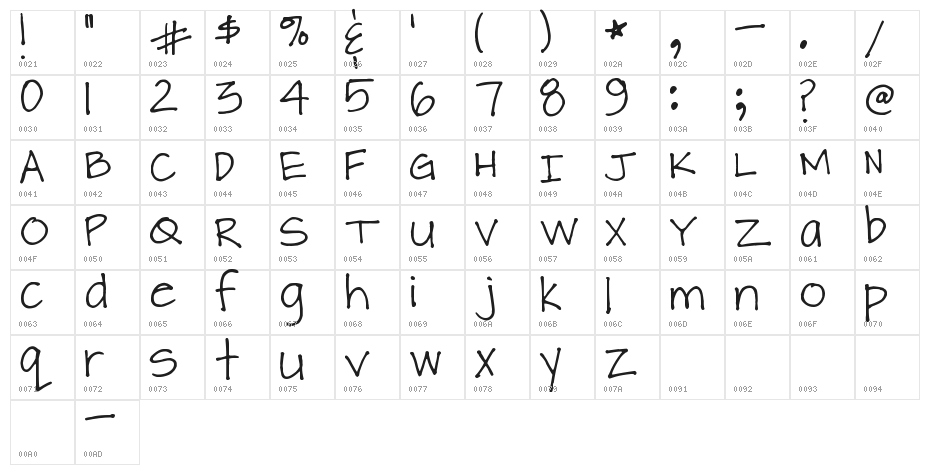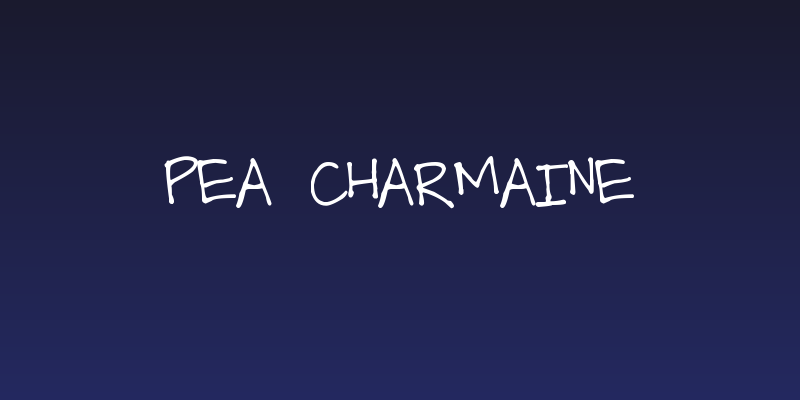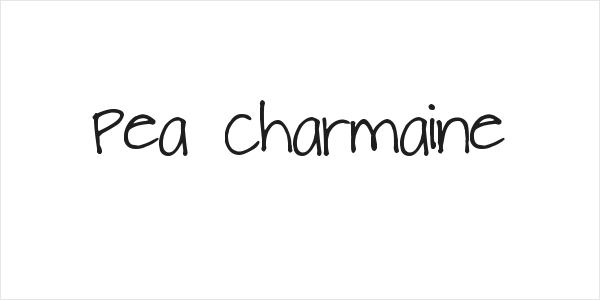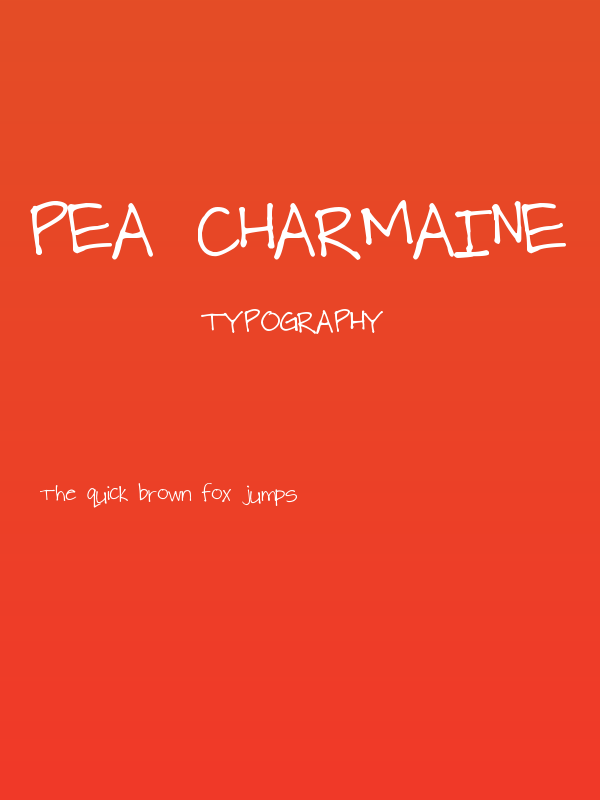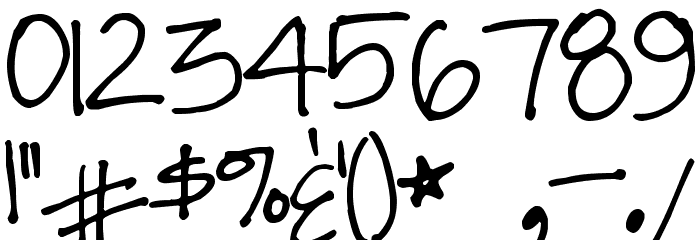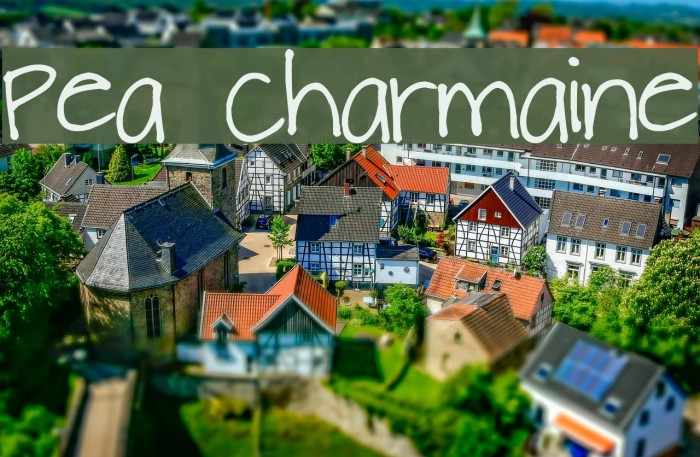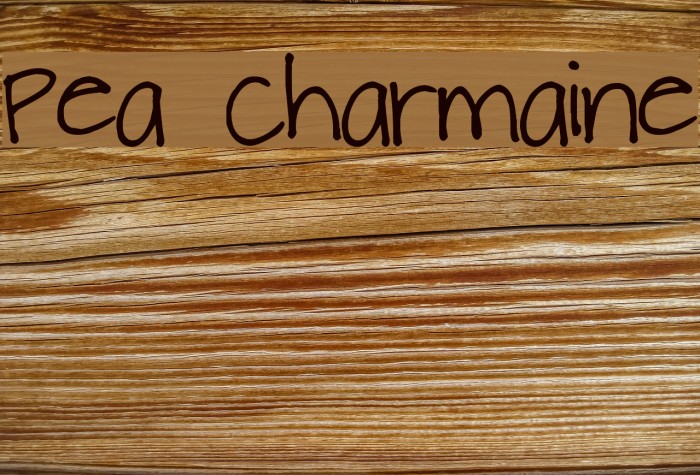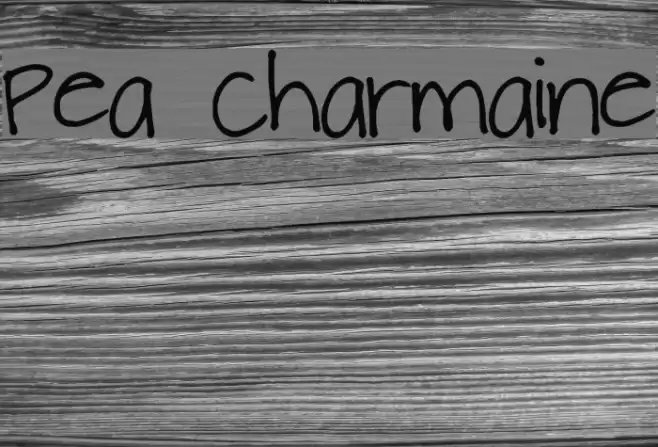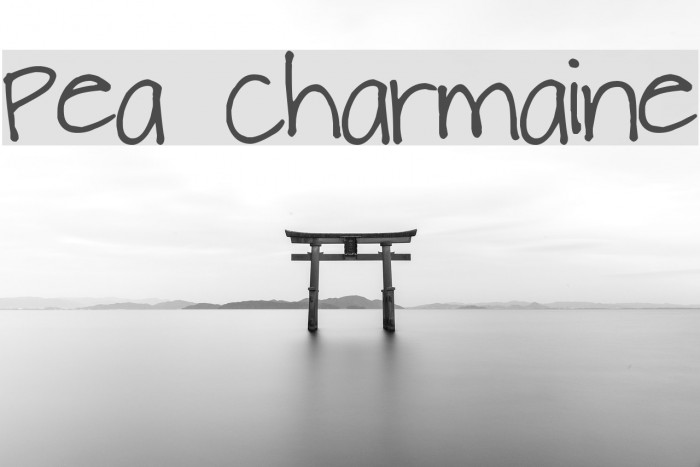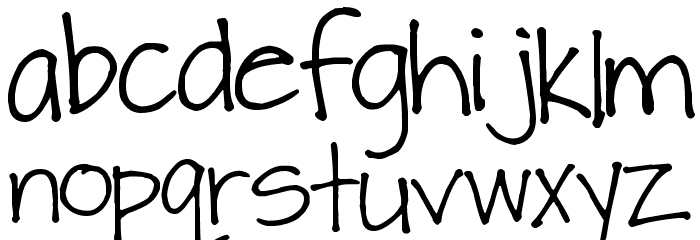
Pea Charmaine Font
Pea Charmaine Description
This font exudes a playful and casual handwritten style, characterized by its irregular strokes and informal appearance. The letters are slightly slanted, giving a dynamic and lively feel. The uppercase and lowercase letters are well-proportioned, maintaining a consistent flow throughout. The numbers and special characters are crafted with the same whimsical touch, ensuring a cohesive look across all elements. This font's charm lies in its ability to convey a sense of friendliness and approachability, making it ideal for projects that require a personal touch.
| Overall Style | Casual |
| Use Case | Headlines, Informal text, Personal projects |
| Proposed Projects | Ideal for greeting cards, personal blogs, children's books, and informal branding. |